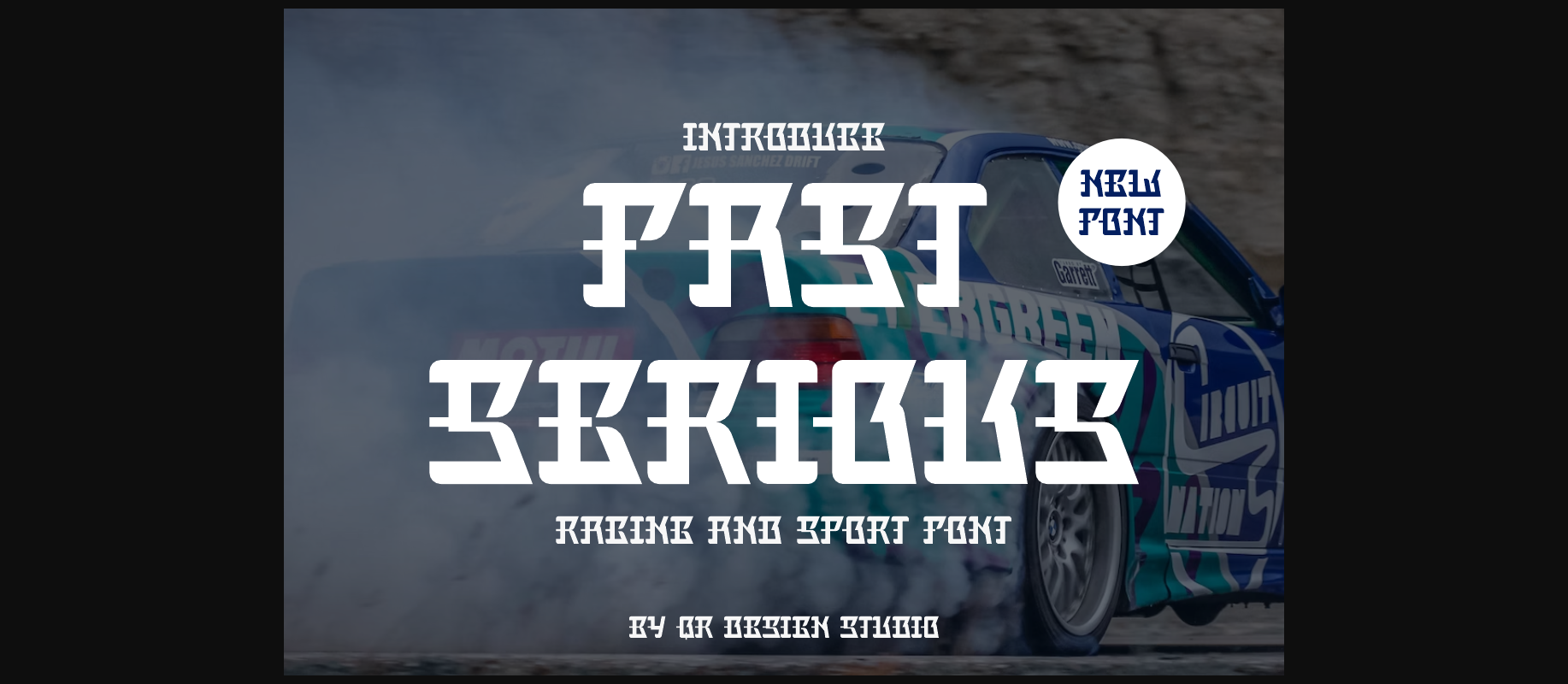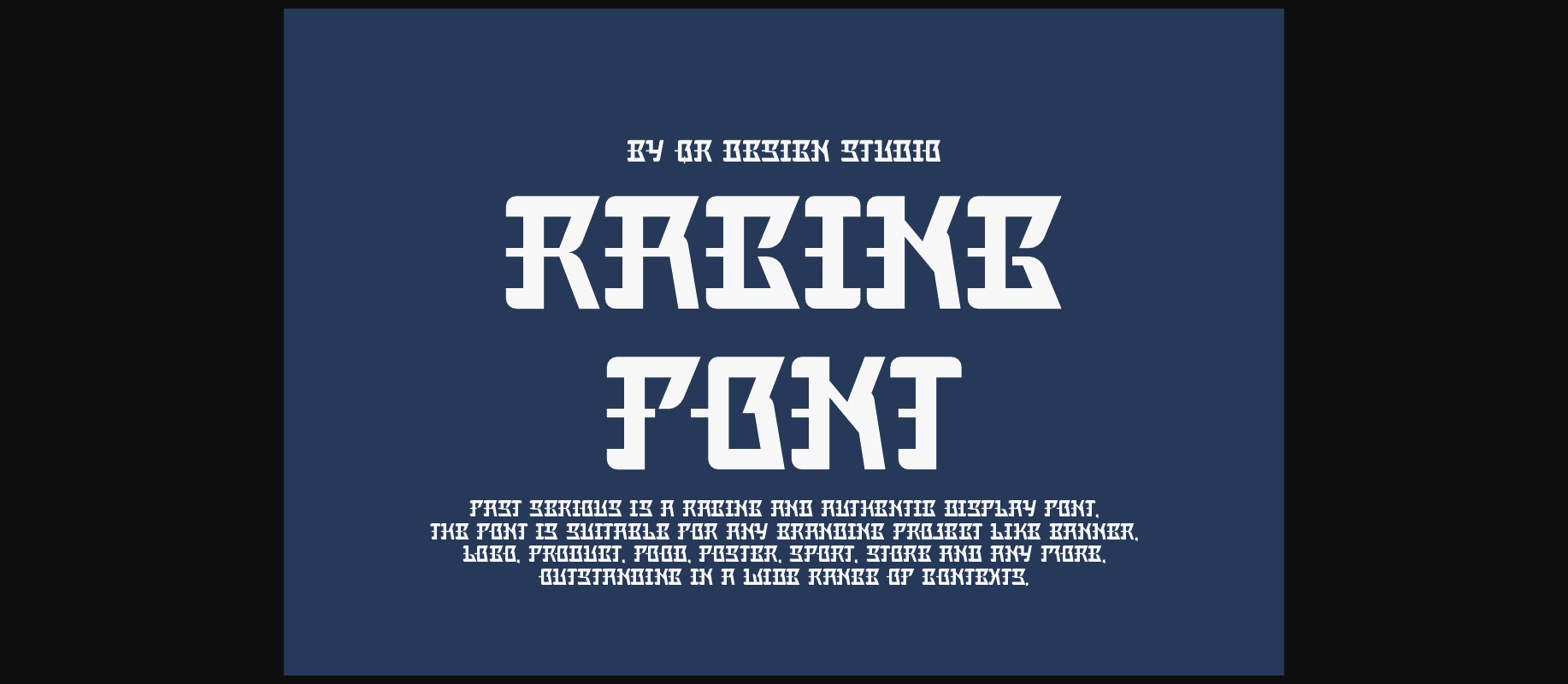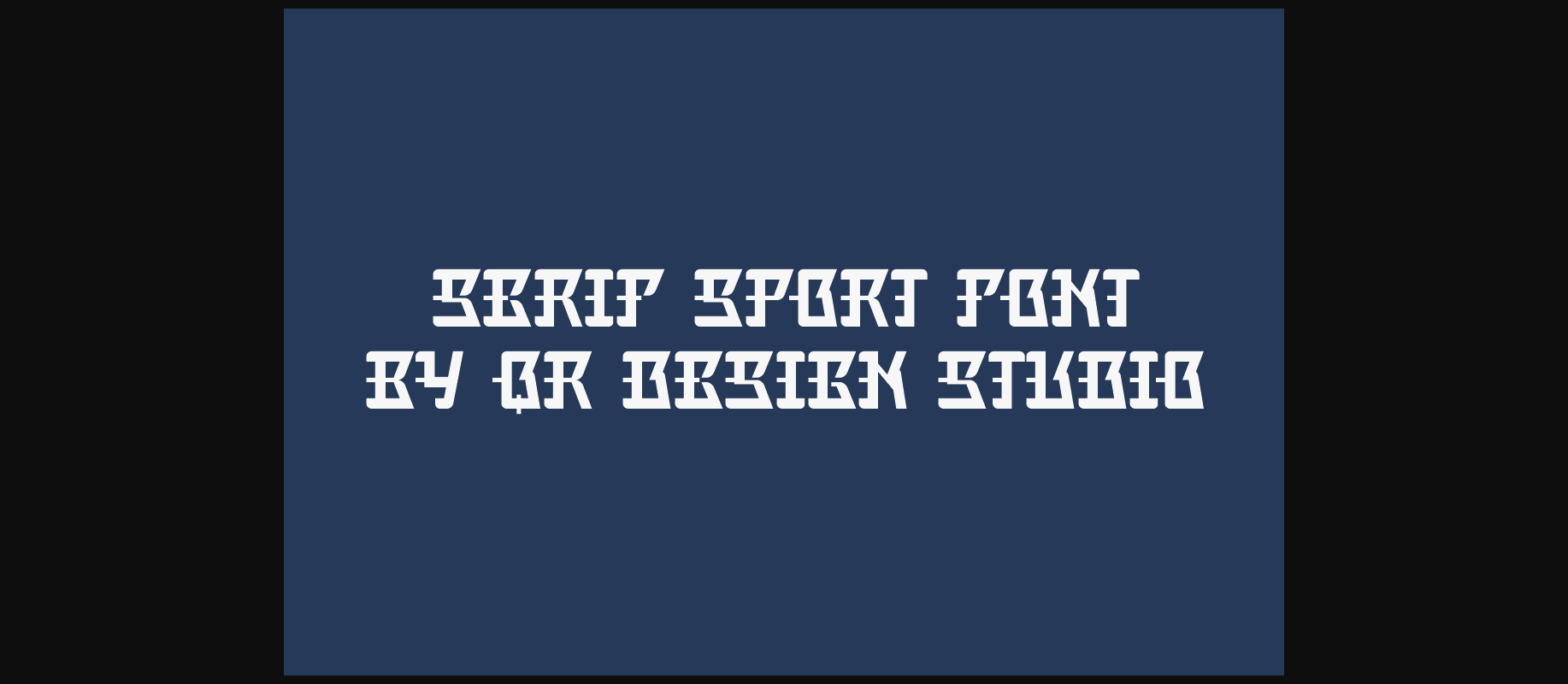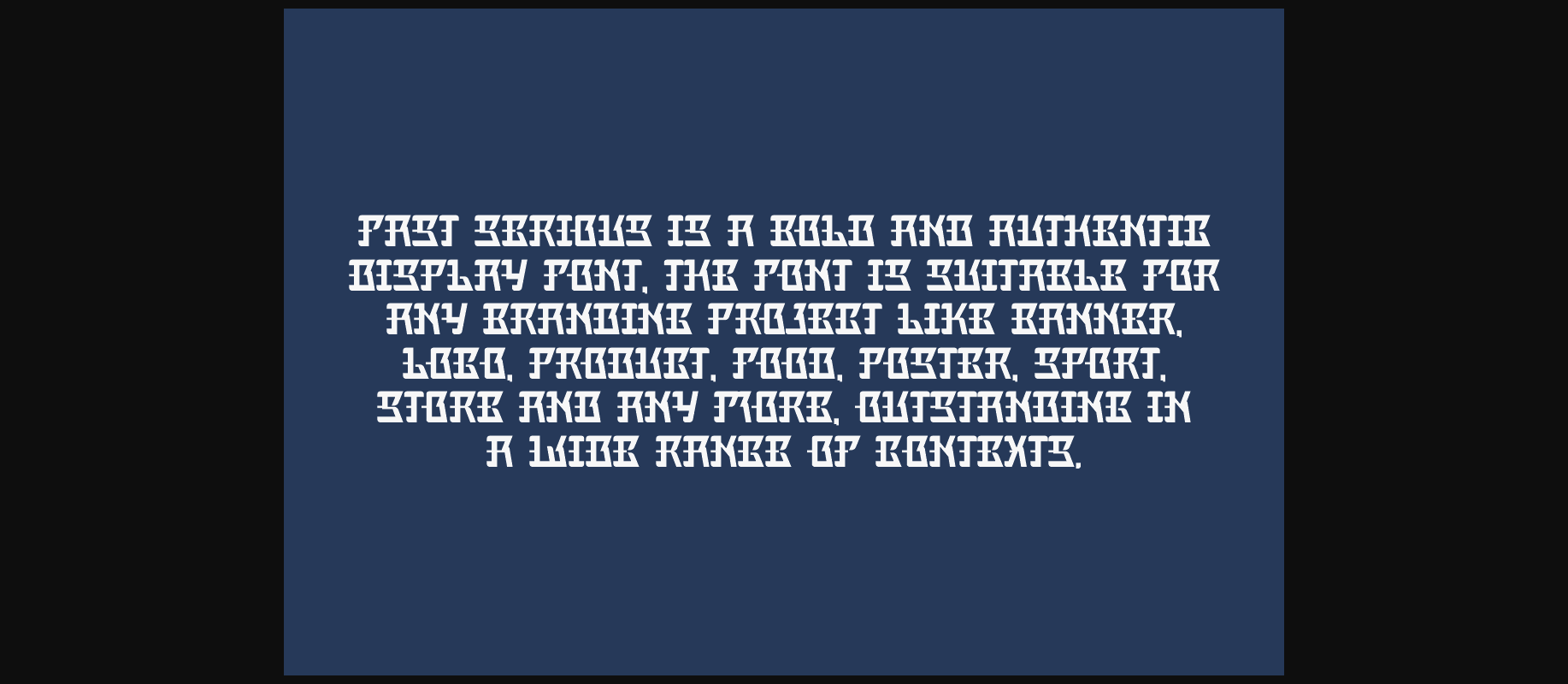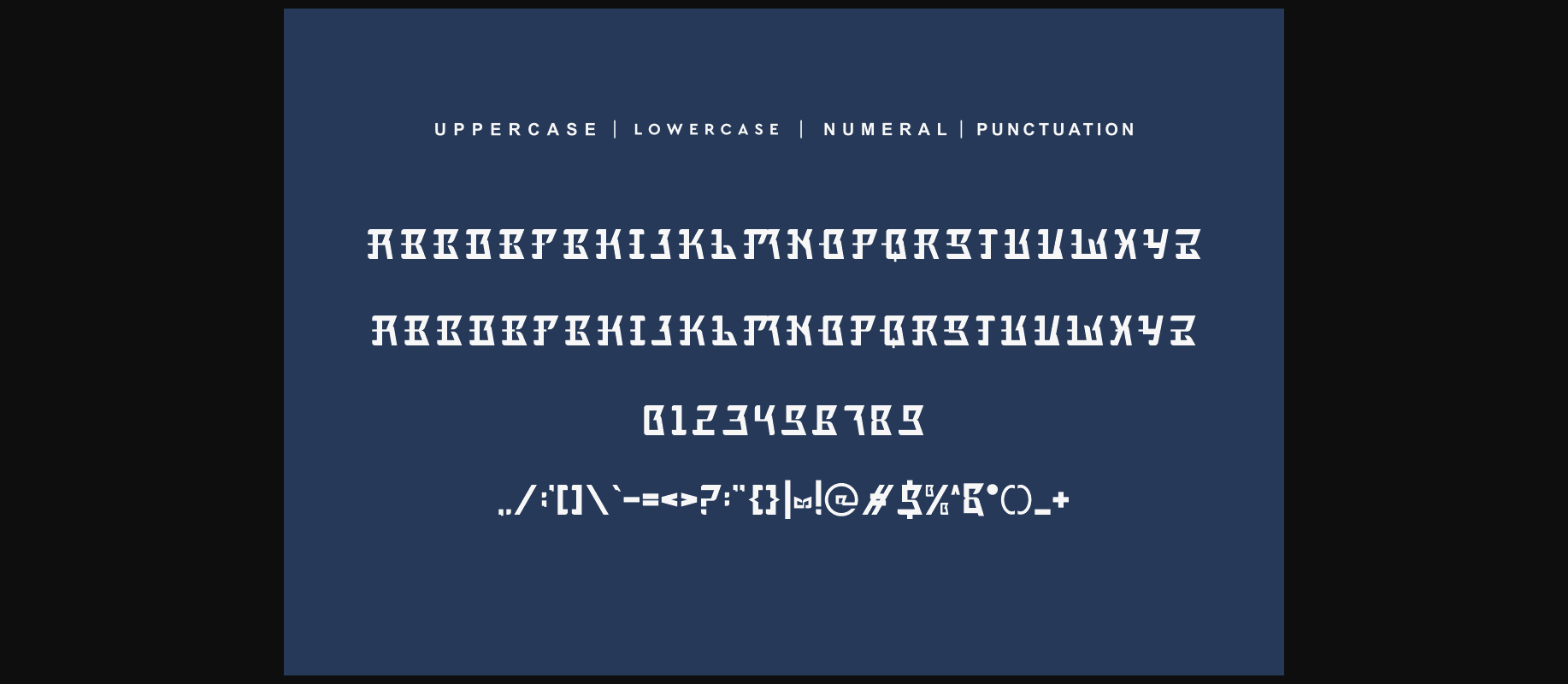
HomeDecorative FontsFast Serious Font Decorative Fonts Fast Serious Font FacebookXPinterestWhatsApp 1 of 8 ... Fast Serious Font Poster 2... Fast Serious Font Poster 3... Fast Serious Font Poster 4... Fast Serious Font Poster 5... Fast Serious Font Poster 6... Fast Serious Font Poster 7... Fast Serious Font Poster 8... About Fast Serious Font Fast Serious is an incredibly unique decorative display font. Masterfully designed to become a true favorite, this font has the potential to bring each of your creative ideas to the highest level! DOWNLOAD NOW People also explored Dream Meadow Font Humaira Font Seaside Modern Handwritten Font Arkqunie Bold Font Woodchuck Font Couple Mug Mockup Coral Pro Copperplate Deco Sublimation Font 338 0 TagsFast Serious Font Previous articleStitch FontNext articleTrending Terus Font LEAVE A REPLY Cancel reply Comment: Please enter your comment! Name:* Please enter your name here Email:* You have entered an incorrect email address! Please enter your email address here Website: Save my name, email, and website in this browser for the next time I comment. Personal Use Free Omira Personal Use Free Read more about this font Hanberra Personal Use Free Read more about this font Stereofidelic Personal Use Free Read more about this font Dealisya Personal Use Free Read more about this font BLOG Free vs Paid Fonts: Why Investing in Premium Fonts Is Worth It Free vs Paid Fonts: Why Premium Fonts Are Worth It in 2025 The debate of free vs paid fonts continues in the design world. While... How to Cut Any Font on Cricut: Convert a Font to SVG (Free) Modern Sans-Serif Fonts That Brands Love in 2025 Using Fonts in Digital Marketing: Tips to Strengthen Your Brand Identity